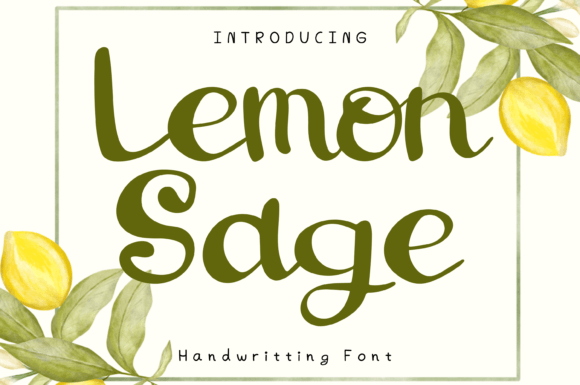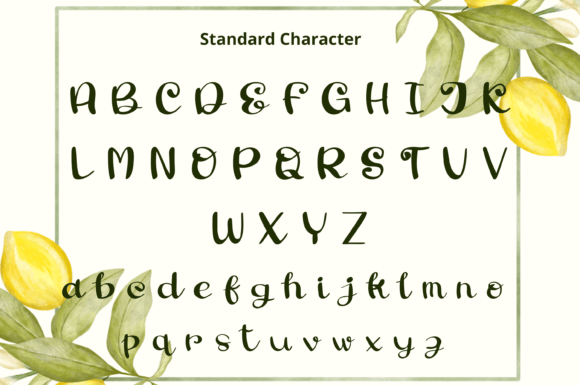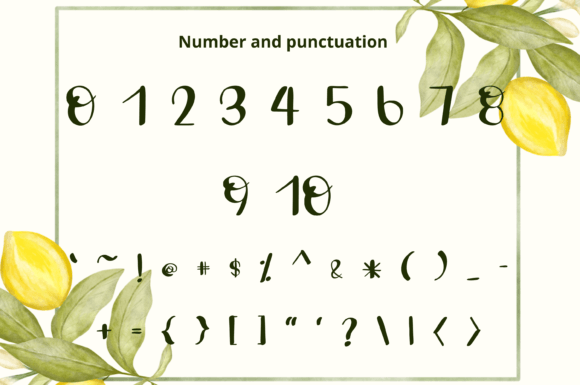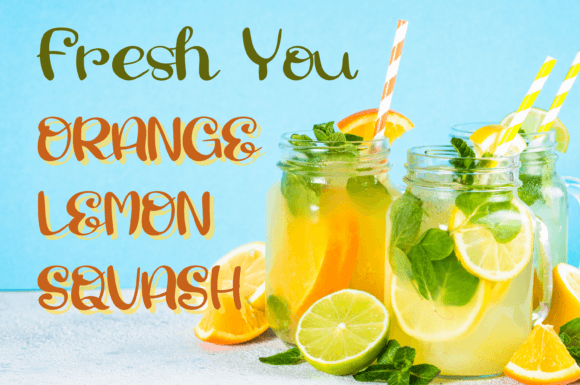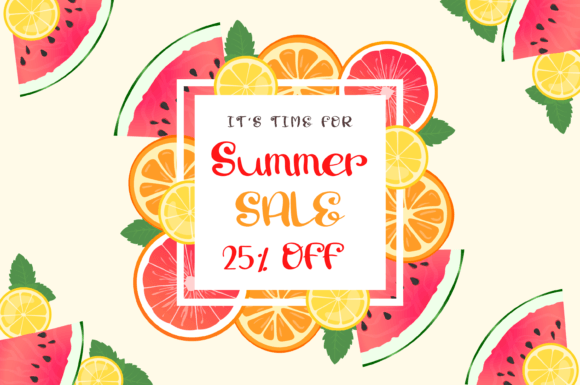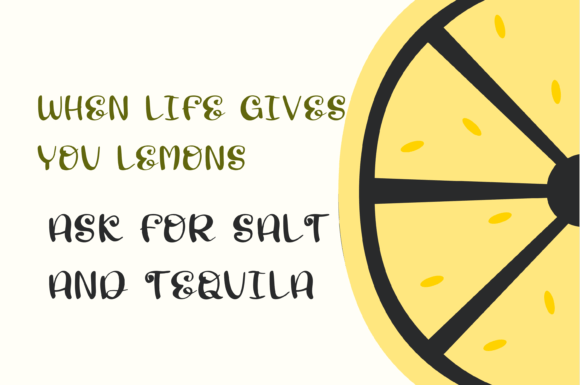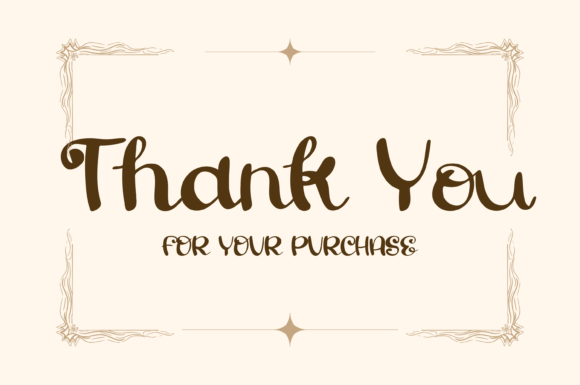
Lemon Sage Font
A Whimsical and Playful Handwritten Typeface
Lemon Sage is a charming handwritten font designed to bring joy and creativity to any project. With its unique letterforms and whimsical flair, this font feels fun and fresh. Whether you’re creating greeting cards, invitations, or social media posts, Lemon Sage adds a playful touch that helps your designs stand out.
Its versatile look makes it perfect for both casual and more polished projects.
Lemon Sage is a font you’ll love to use again and again. It’s ideal for greeting cards, birthday invitations, and thank you notes. The cute, lighthearted style sets a friendly tone that feels memorable and personal.
In branding, Lemon Sage shines on logos, product packaging, and labels. The handwritten style helps your brand look approachable, unique, and fun.
This font is also great for digital designs like social media graphics, blog headers, and website banners. The playful shapes keep your content feeling fresh and engaging while staying easy to read.
Lemon Sage is also perfect for posters, art prints, and DIY crafts. Its cheerful curves bring life to any message you share.
Even with its whimsical details, Lemon Sage remains clear and legible in all sizes. Balanced spacing and smooth connections help your text look clean, whether you’re using it for big headlines or small captions.
For a tidy and modern look, pair Lemon Sage with a simple sans-serif font. Use Lemon Sage for titles and feature text, and the sans-serif for supporting content. This combination creates balance while showcasing the font’s personality.
To help Lemon Sage stand out, use light backgrounds and bright, cheerful colors. Shades like soft yellow, mint, and blush pink let the script shine without overwhelming your layout.
When designing invitations or packaging, consider adding simple illustrations or playful icons that match the handwritten style.
On social media, embrace white space to keep your posts clean and your text easy to read.
Think about the mood you want to share. Lemon Sage is perfect for designs that should feel joyful, cute, and inviting.
Lemon Sage isn’t just another script font—it’s a creative asset that makes any project feel unique and uplifting. From personal keepsakes to professional branding, this font adapts seamlessly and adds a fun finish to every design.
Adding Lemon Sage to your font collection means you’ll always have a versatile, charming option ready to use. Whether you’re creating logos, cards, or social media content, this font helps every idea feel special and unforgettable.